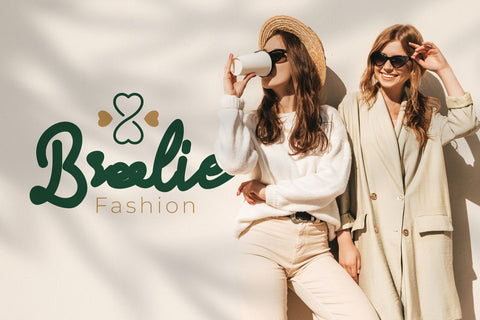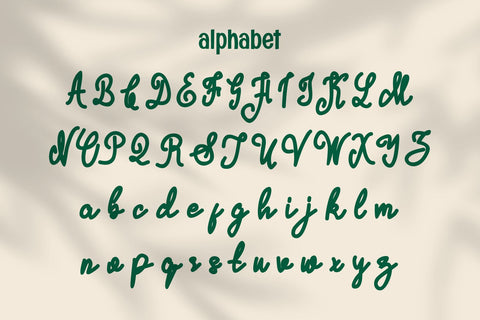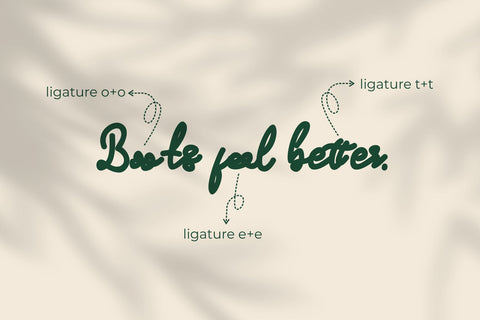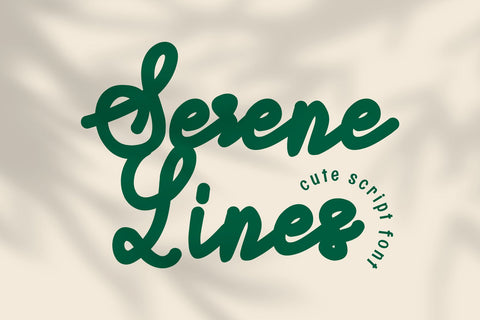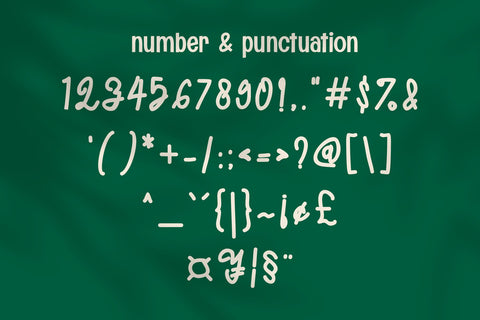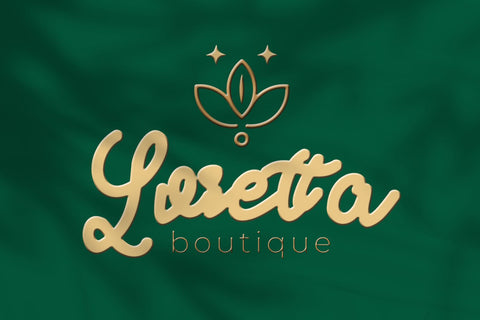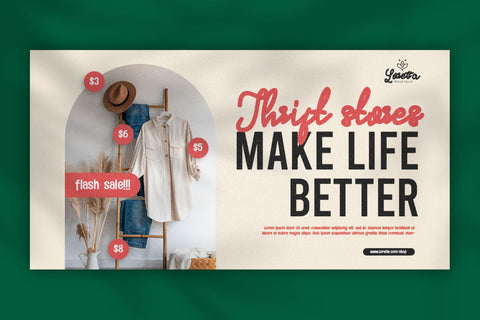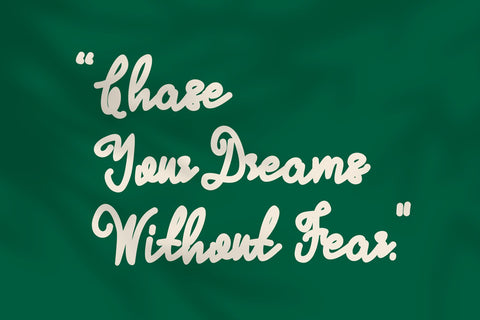
Serene Lines - Cute Monoline Script Font
Serene Lines is a thick monoline script font featuring cute and naturally handwritten characters. Its charming design is perfect for adding any project. Whether used for invitations, greeting cards, or branding materials, Serene Lines brings a warm and friendly feel that captures the essence of hand-crafted lettering. Ideal for any design that requires a playful yet elegant aesthetic, this font will make your text stand out with its unique and endearing style.